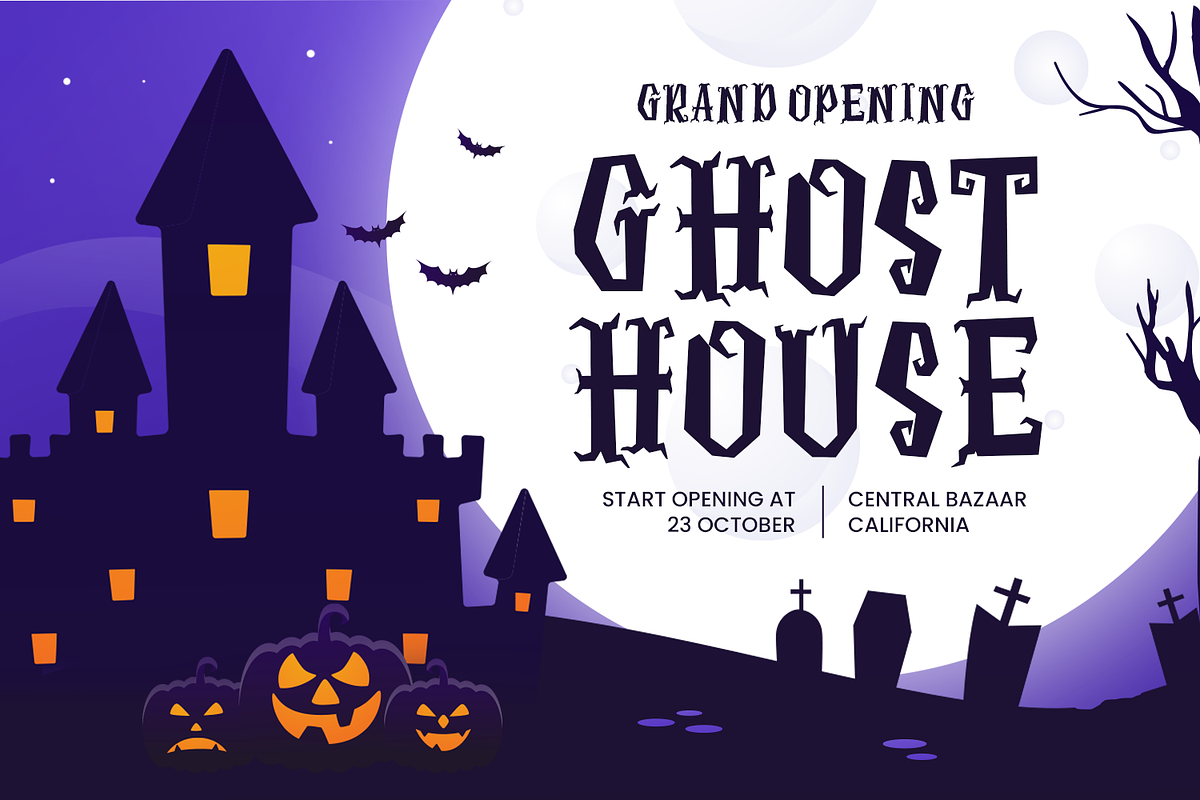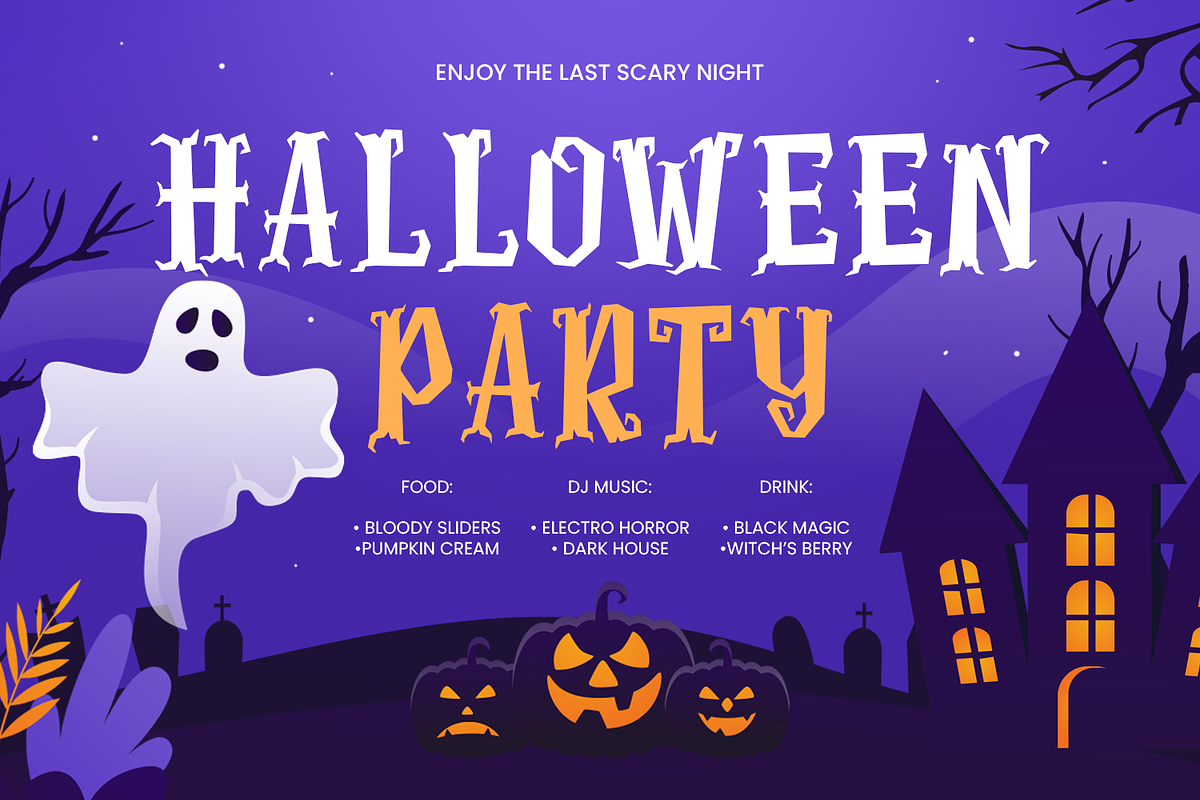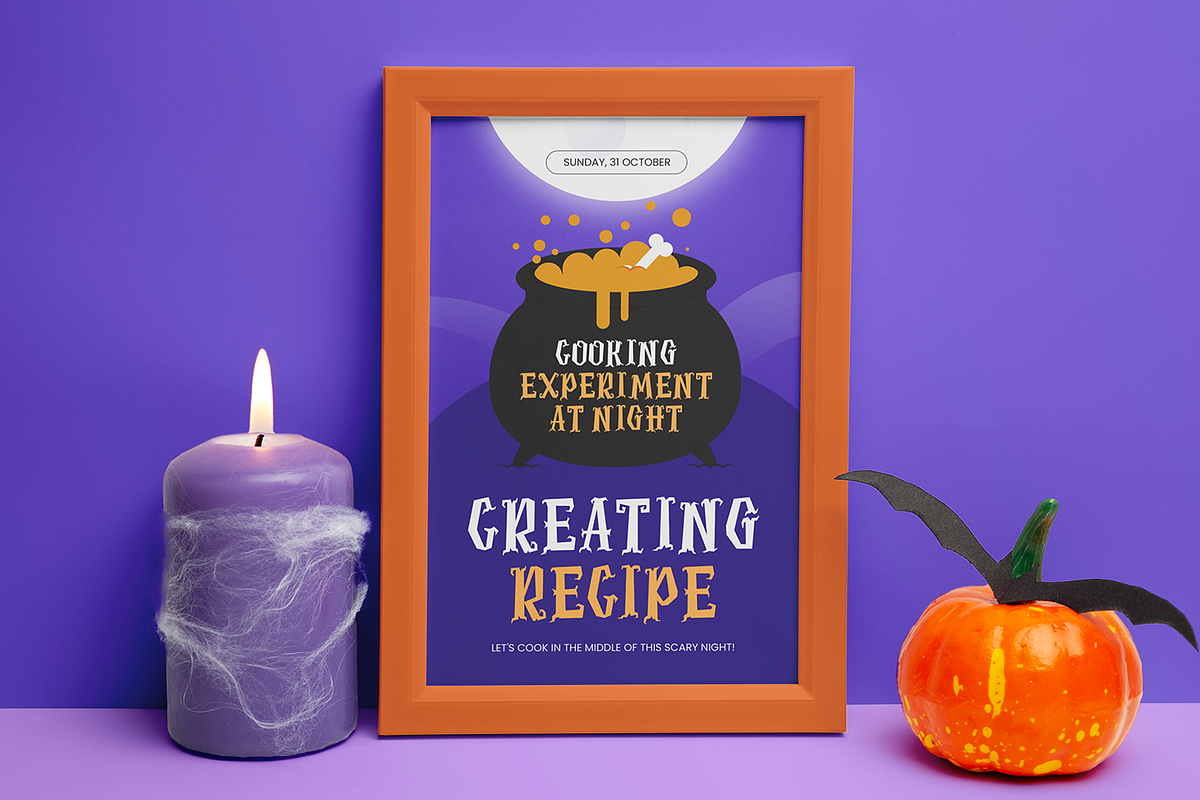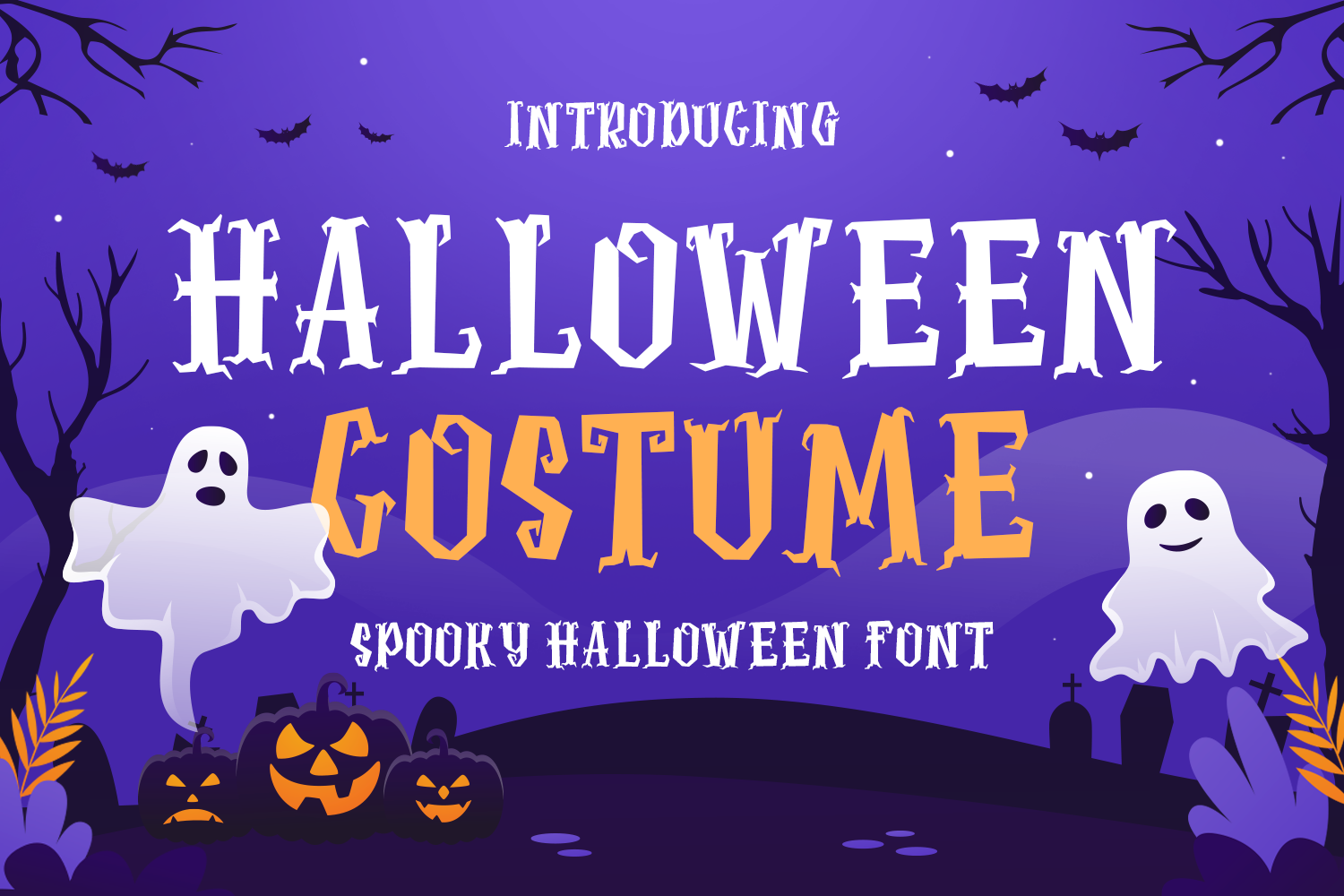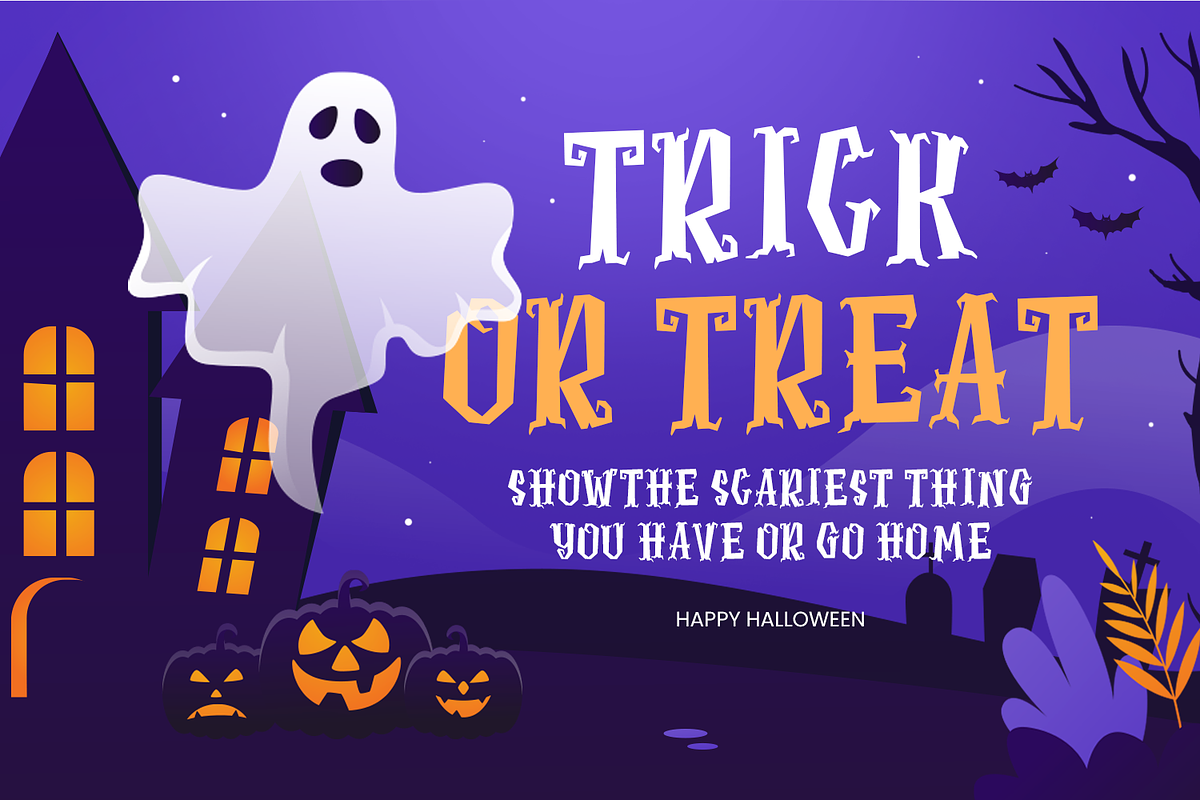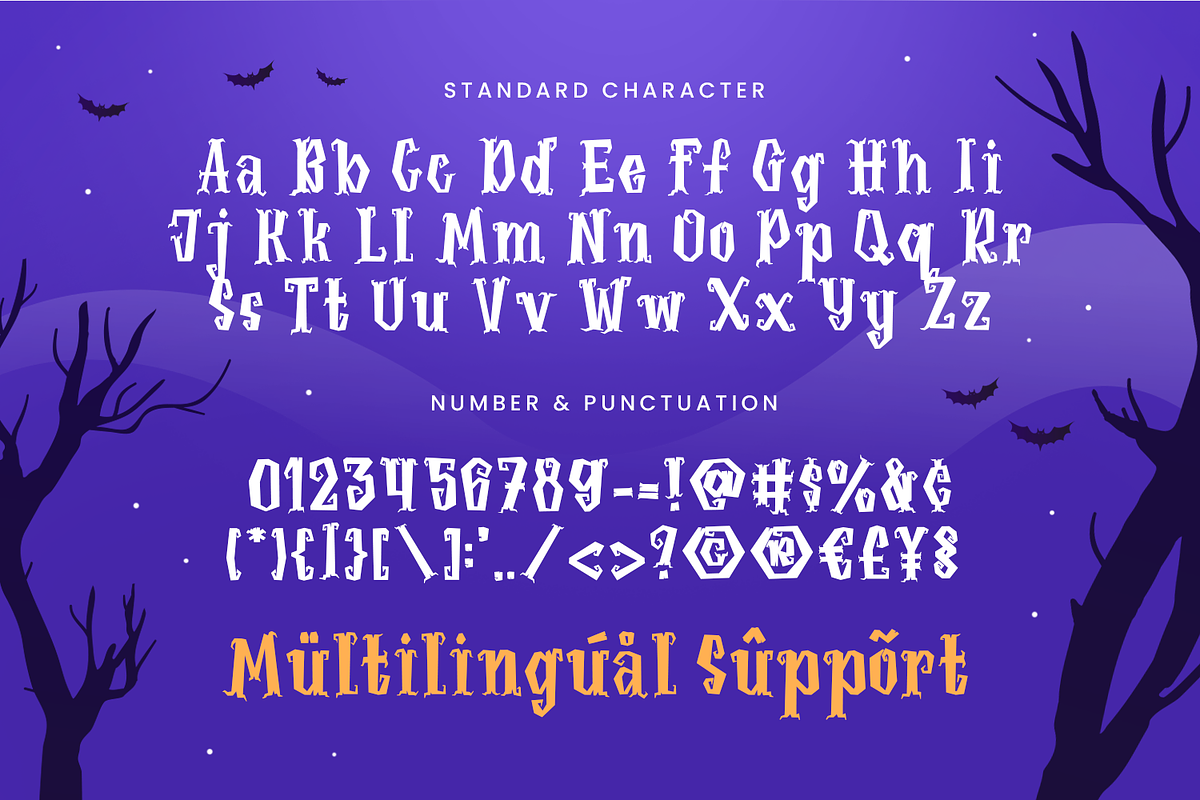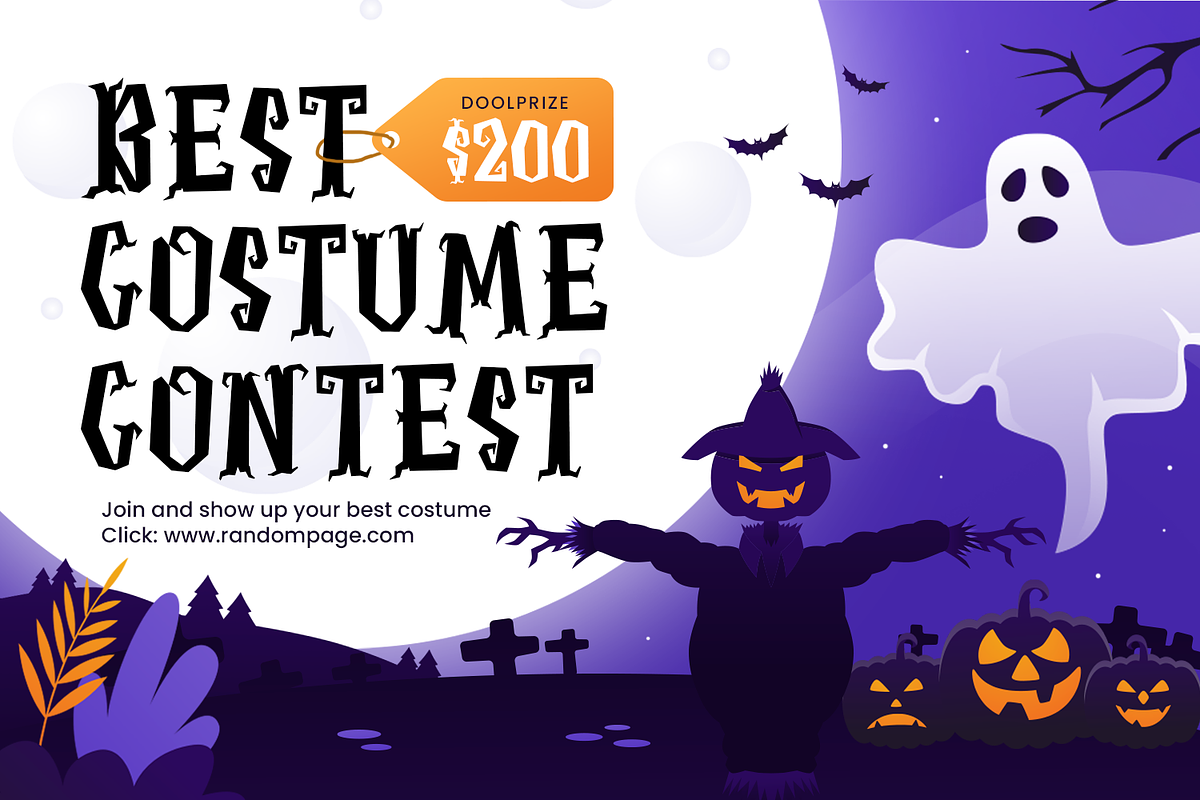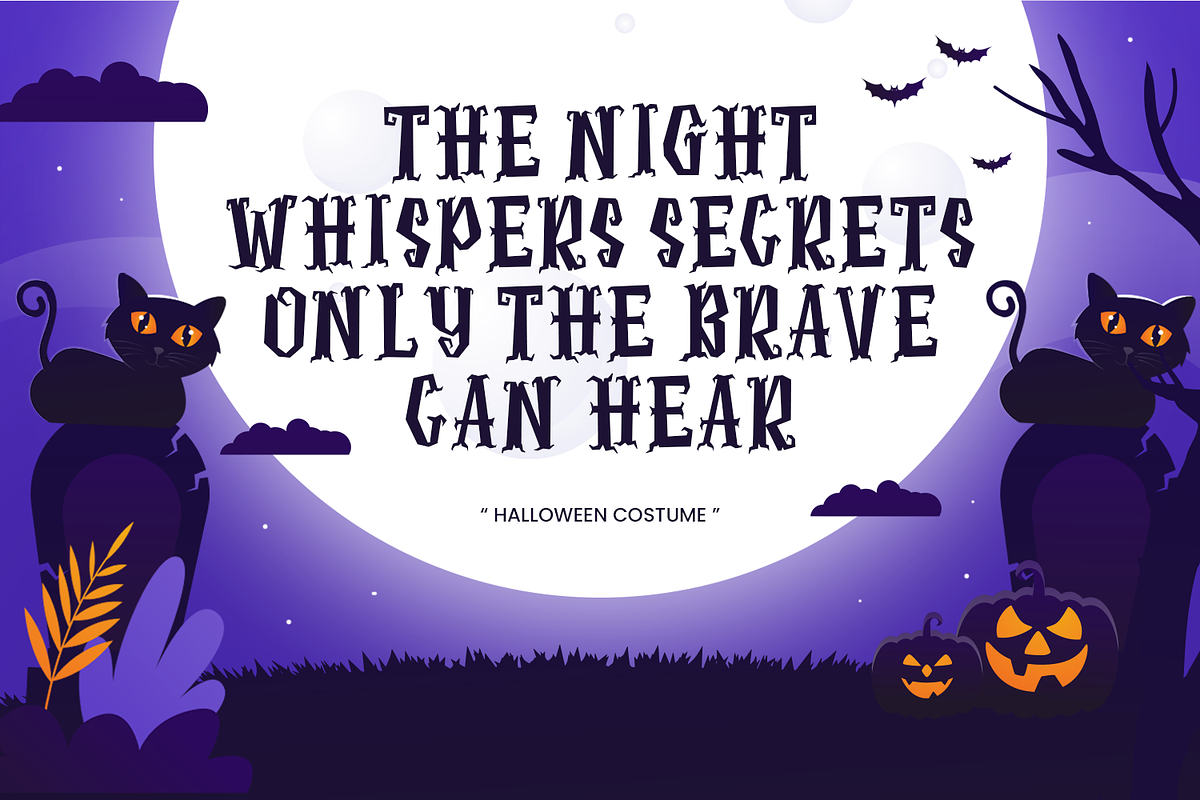
Halloween Costume – Spooky Horror Display Font
Halloween Costume is a spooky horror display font inspired by creepy costumes, haunted nights, mysterious characters, and the chilling atmosphere of Halloween. Featuring bold shapes, rough details, and eerie letterforms, this horror font creates a frightening yet playful visual impact that instantly captures attention.
With its creepy costume-inspired appearance and dramatic details, Halloween Costume gives every letter a distinctive horror personality. The combination of bold forms, rough textures, and spooky character elements creates a striking visual style that works especially well when large typography becomes the main element of a design.
Inspired by haunted costumes, Halloween parties, scary characters, dark nights, and spooky decorations, Halloween Costume combines a strong display style with a fun horror aesthetic. Its bold structure keeps the typography visually clear while the eerie details add atmosphere, character, and a touch of frightening charm.
Halloween Costume is designed for a wide range of creative projects, including Halloween posters, party flyers, banners, event graphics, spooky decorations, invitations, stickers, mugs, merchandise, and social media artwork. Its strong display character makes it especially effective for headlines, titles, signage, and other large-scale typography where visual impact is essential.
With its distinctive spooky costume style and playful horror appearance, Halloween Costume offers a fun alternative to traditional Halloween fonts. Whether you are creating a haunted party poster, spooky invitation, Halloween event campaign, autumn craft, or creepy seasonal artwork, this display font adds a memorable visual identity to your typography.
Spooky Horror Display Style A bold display font inspired by creepy costumes, haunted nights, scary characters, and Halloween atmosphere.
Creepy Costume-Inspired Letterforms Rough details and eerie shapes create a distinctive and mysterious appearance.
Fun Horror Aesthetic Combines frightening visual elements with a playful Halloween character.
Bold Display Letterforms Strong and eye-catching letterforms are designed to stand out in large headlines, posters, and titles.
Multilingual Support Includes extended glyph support for a wide range of international design projects.
Halloween Costume is a distinctive spooky horror display font that combines bold typography with a creepy, playful, and mysterious Halloween aesthetic. Its rough details and dramatic letterforms make it an excellent choice for designers who want typography that feels scary, fun, expressive, and unforgettable.